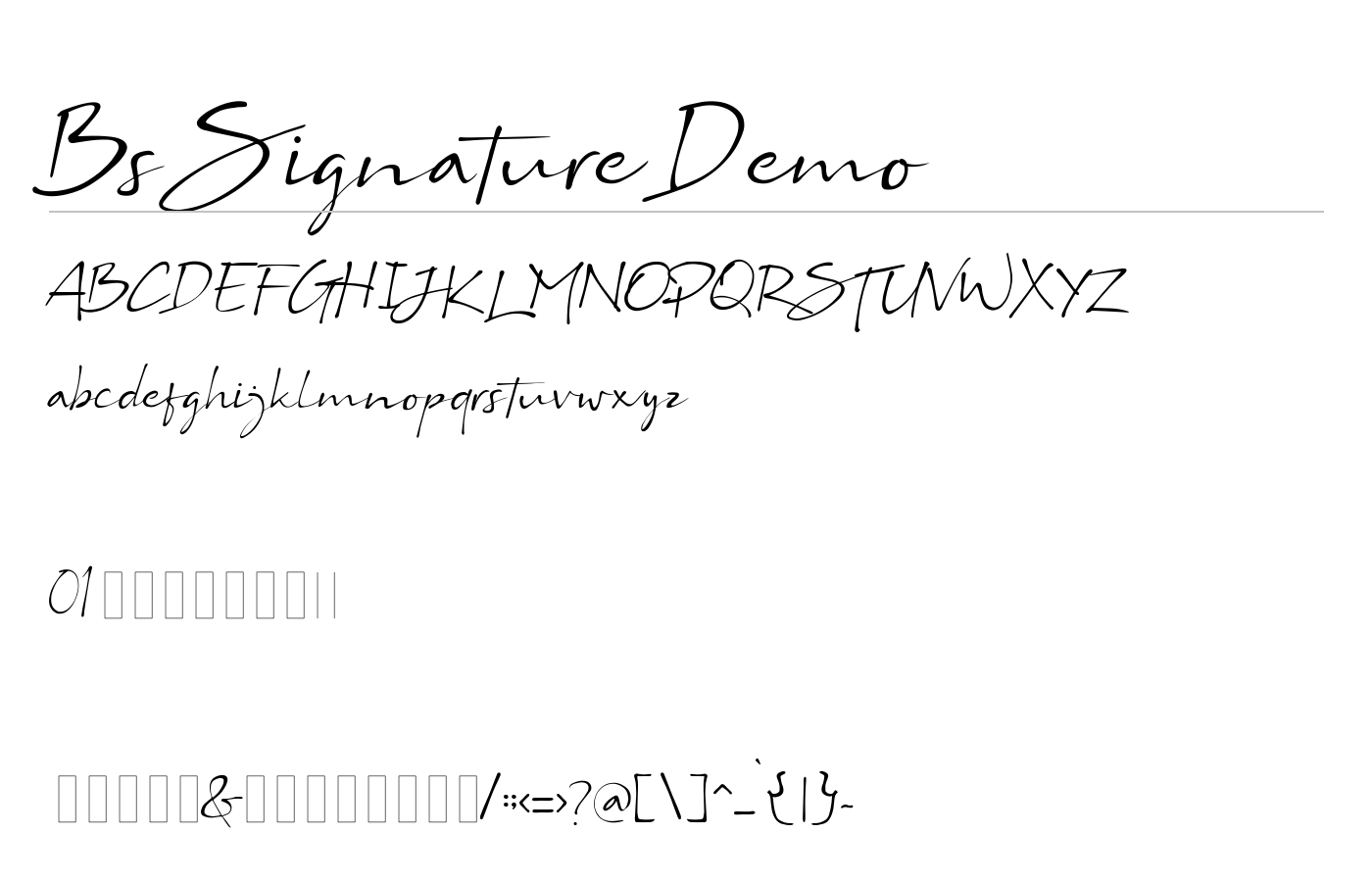
Bs Signature Demo is a delicate and stylish handwritten script font that captures the elegance of natural, flowing penmanship. With its slender strokes, irregular letter forms, and casual yet refined appearance, it is perfect for adding a personal, artistic touch to branding, invitations, logos, and creative projects requiring a sophisticated, yet approachable feel. This font excels at conveying warmth and individuality while maintaining clarity and charm.
Bs Signature Demo Font
About Bs Signature Demo Font